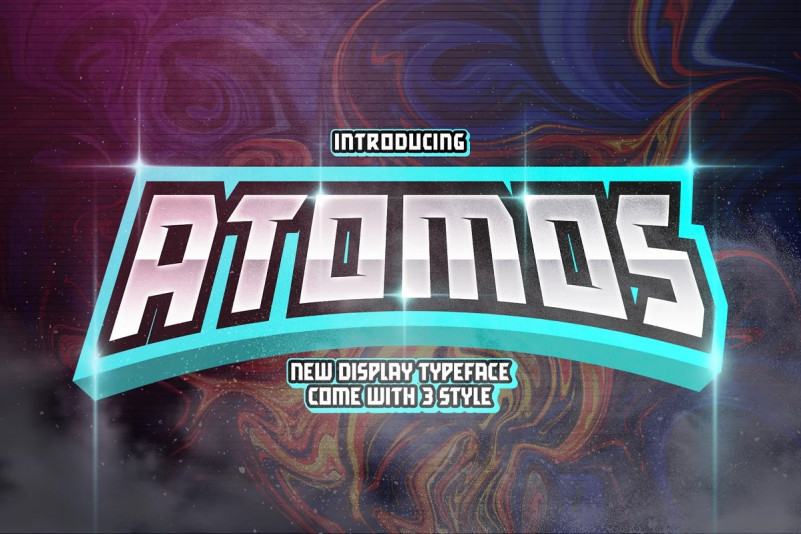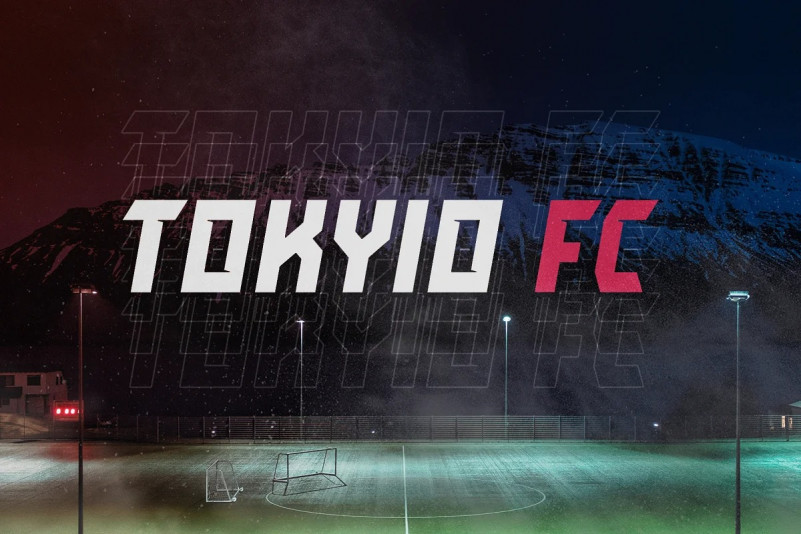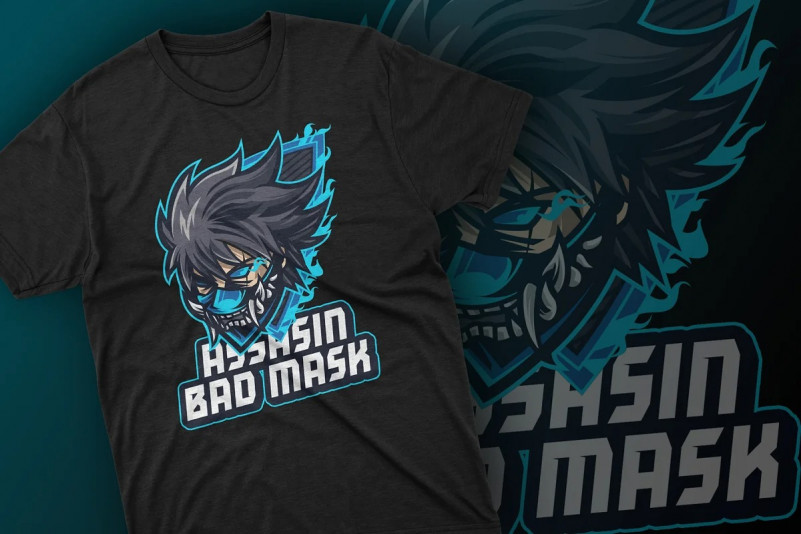
Atomos Font
Introducing, Atomos an incredibly Unique and Interesting Display Font!!
Atomos is an incredibly Unique and Interesting Display Font for your Design that is absolutely great for your next creative project such as logos, printed quotes, invitations, cards, product packaging, headers, Logotype, Letterhead, Poster, Apparel Design, Label, and etc.